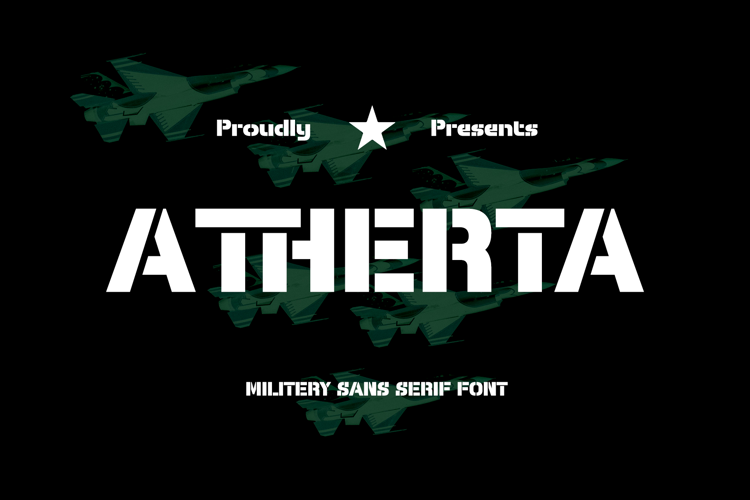
PTG Atherta Font
A bold and rugged stencil typeface inspired by military aesthetics. Perfect for posters, games, apparel, and branding that need a strong and commanding look.